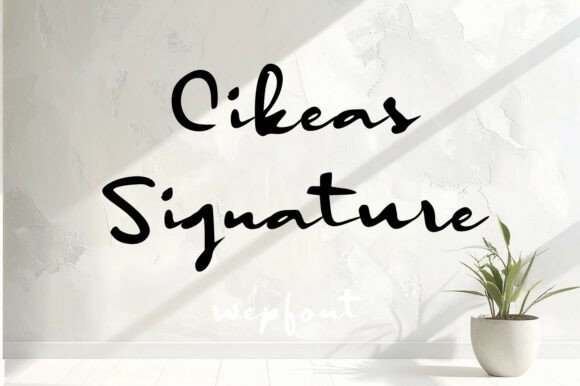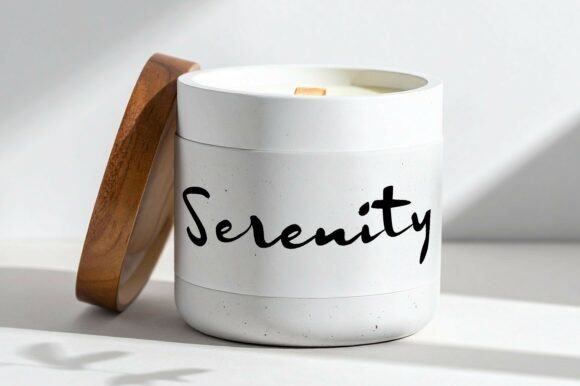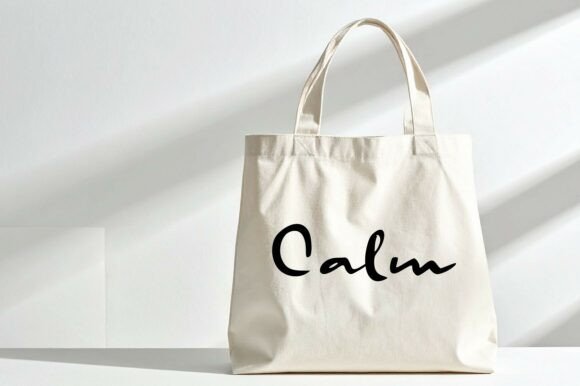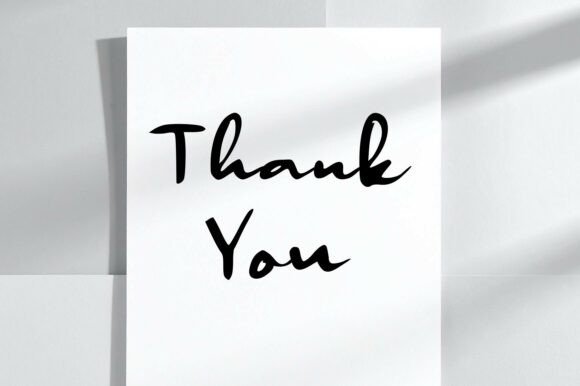
Introduction to Cikeas Signature Font
As a designer, have you ever found yourself yearning for that perfect font to elevate your creative project? Perhaps you’ve scrolled through countless options, only to feel like something is missing. The search is over, because we’re excited to introduce you to the Cikeas Signature Font – a game-changing script font that embodies the essence of personal handwriting.
With its free download option and high-quality design, this font is a treasure trove for designers seeking to infuse their work with a touch of elegance and sophistication. The Cikeas Signature Font boasts a transparent background, making it the perfect design resource for any creative project.
Whether you’re a seasoned pro or a rising talent, this font is sure to become your go-to companion for crafting visually stunning designs that leave a lasting impression.
Key Features of Cikeas Signature Font
- Unique and creative font design suitable for various projects, including logo design, branding, and marketing materials.
- Features a transparent background, allowing for easy customization and integration with other design elements.
- High-resolution design, suitable for use in print and digital applications, including business cards, brochures, and website graphics.
- Perfect for designers and artists working on creative projects, offering a distinctive and eye-catching visual element.
- Designed as a design resource, ideal for use in various creative contexts, from advertising and marketing to editorial and publishing projects.
- Available in a range of sizes, from small to large, making it suitable for use in various design applications, including social media graphics and presentations.
Honest Review: Cikeas Signature Font
I recently had the chance to work with the Cikeas Signature Font, and I must say it’s been a game-changer for my creative projects. As a designer, I’m always on the lookout for high-quality design resources that can elevate my work, and this font definitely fits the bill.
One of the things that stood out to me was the high quality of the font. The Cikeas Signature Font is a beautiful, elegant script that’s perfect for adding a touch of sophistication to any design. The transparent background makes it incredibly versatile, and I’ve been using it for everything from logos to invitations.
- High-quality, elegant script font
- Perfect for creative projects, from logos to invitations
- Limited character set (may not be suitable for extended text)
- No bold or italic versions available
Overall, I’m thoroughly impressed with the Cikeas Signature Font. It’s a fantastic addition to any designer’s toolkit, and I highly recommend it for any creative project. Just be aware of the limitations, and you’ll be golden!
Design Resource Tips
To get the most out of the Cikeas Signature Font, use it in conjunction with a transparent background to create a beautiful and eye-catching design. Experiment with different font sizes, colors, and styles to find the perfect combination for your project.
The Cikeas Signature Font is ideal for a variety of creative projects, including logos, business cards, brochures, and social media graphics. Its unique and stylish design makes it perfect for branding and marketing materials.